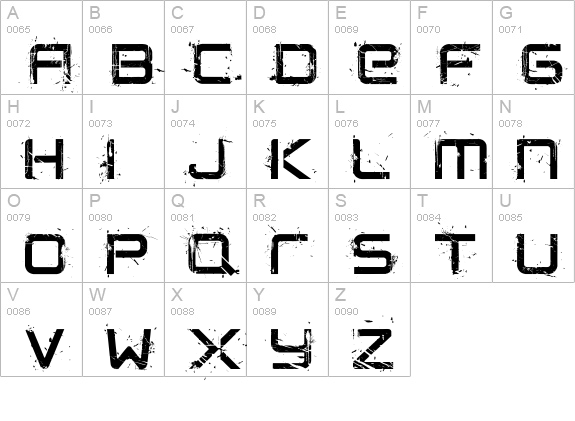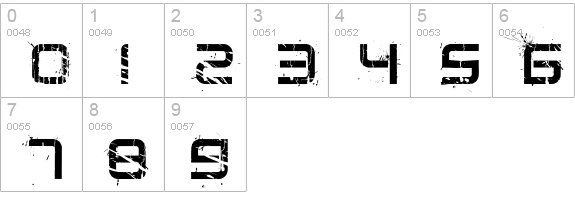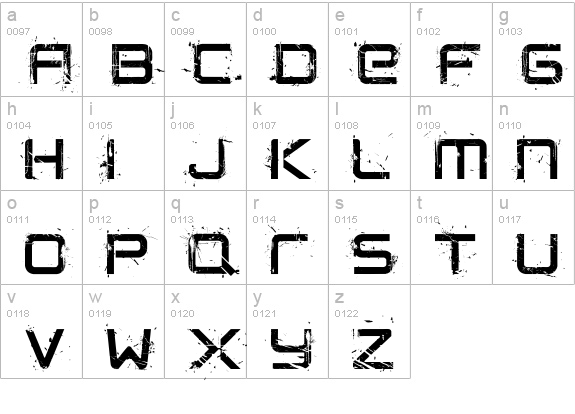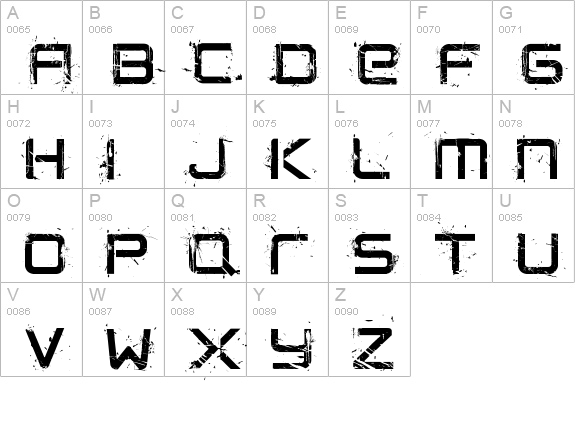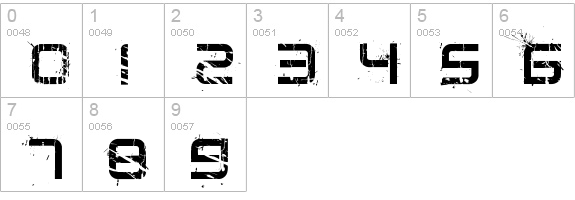
CRUSHED Font Details
Introducing CRUSHED font, a visually captivating typeface that will leave a lasting impression on any design project. This unique and edgy font captures the essence of crushed elements, adding a touch of intrigue and depth to your typography. Designed with meticulous attention to detail, CRUSHED font boasts a stunning combination of sharp angles and crushed lines, resulting in a dynamic and eye-catching display. Whether you're working on posters, logos, or any other creative endeavor, this font is sure to make a bold statement. What sets CRUSHED font apart is not only its striking design, but also its versatility. With multiple weights and styles, you have the freedom to experiment and create truly unique compositions. From bold headlines to elegant body text, this font adapts effortlessly to any project. And the best part? CRUSHED font is freely available to download at FontsMarket.com. No need to worry about breaking the bank - simply visit the website and unleash your creativity without any limitations. Whether you're a professional designer or an aspiring artist, this font is a valuable addition to your toolkit. Don't miss out on the opportunity to elevate your designs with CRUSHED font. Download it today and let your imagination run wild.